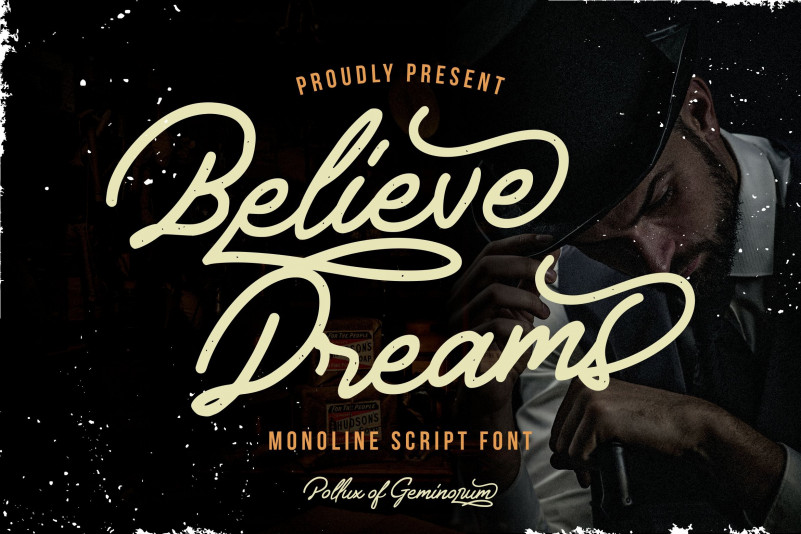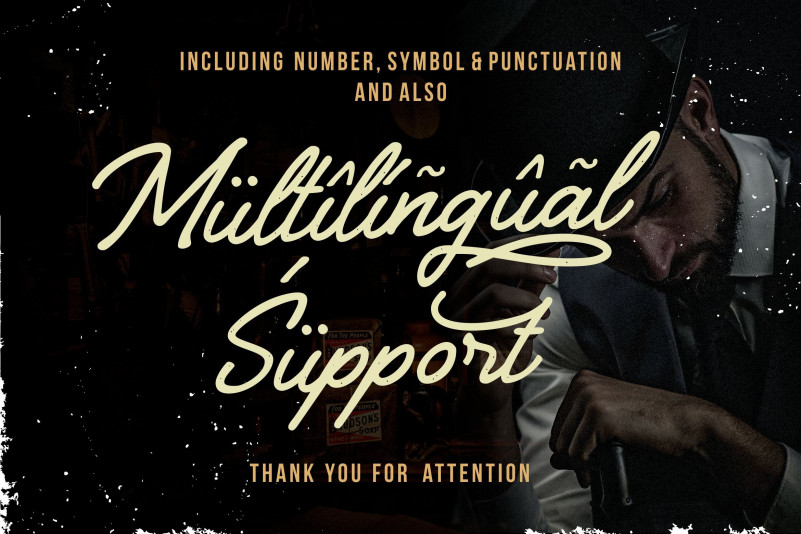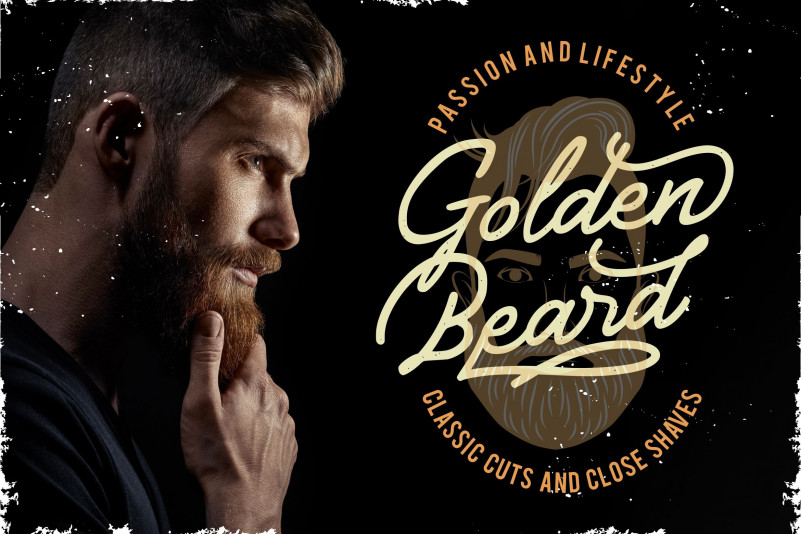
Believe Dreams Script Font
Introducing Believe Dreams, a monoline script font with rustic style. This font is suitable for any design or needs. Perfect for logo, branding, book cover, poster, banner, flyer, video, tvc, etc. It has Open Type features so you have many style options that you can access them from designing software with open type panel.